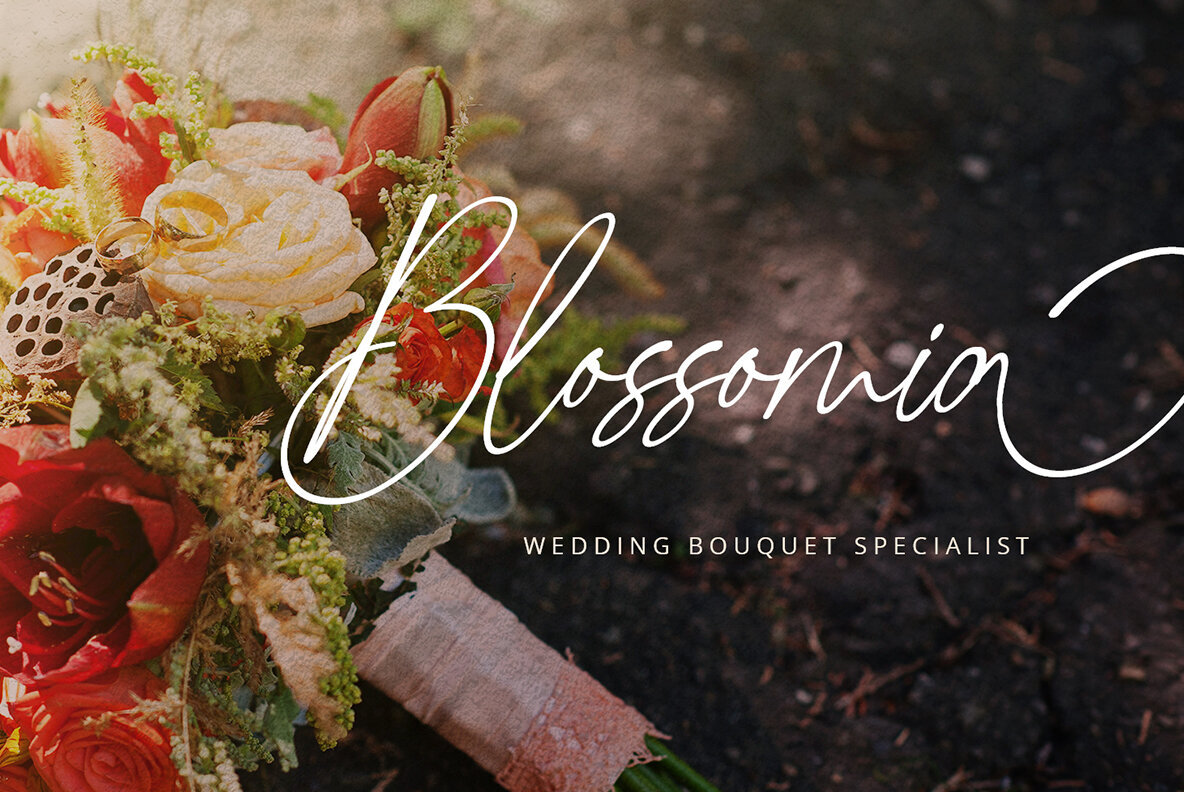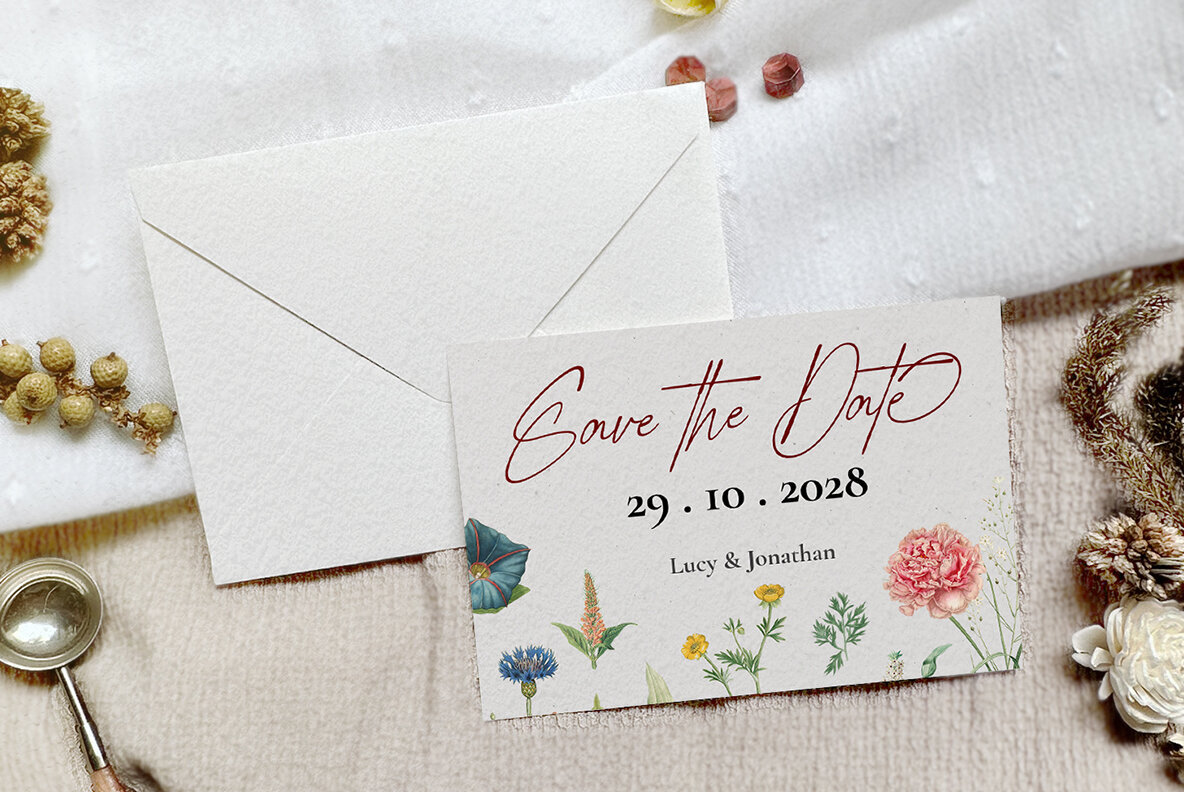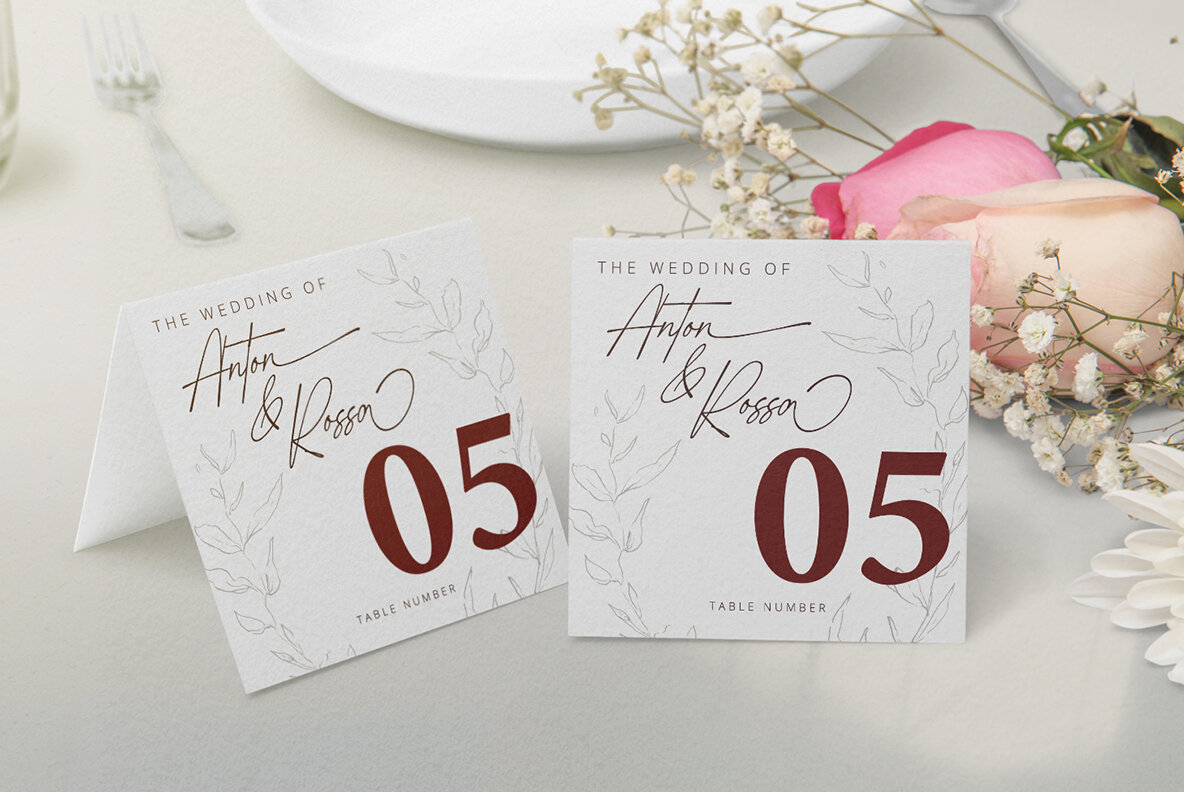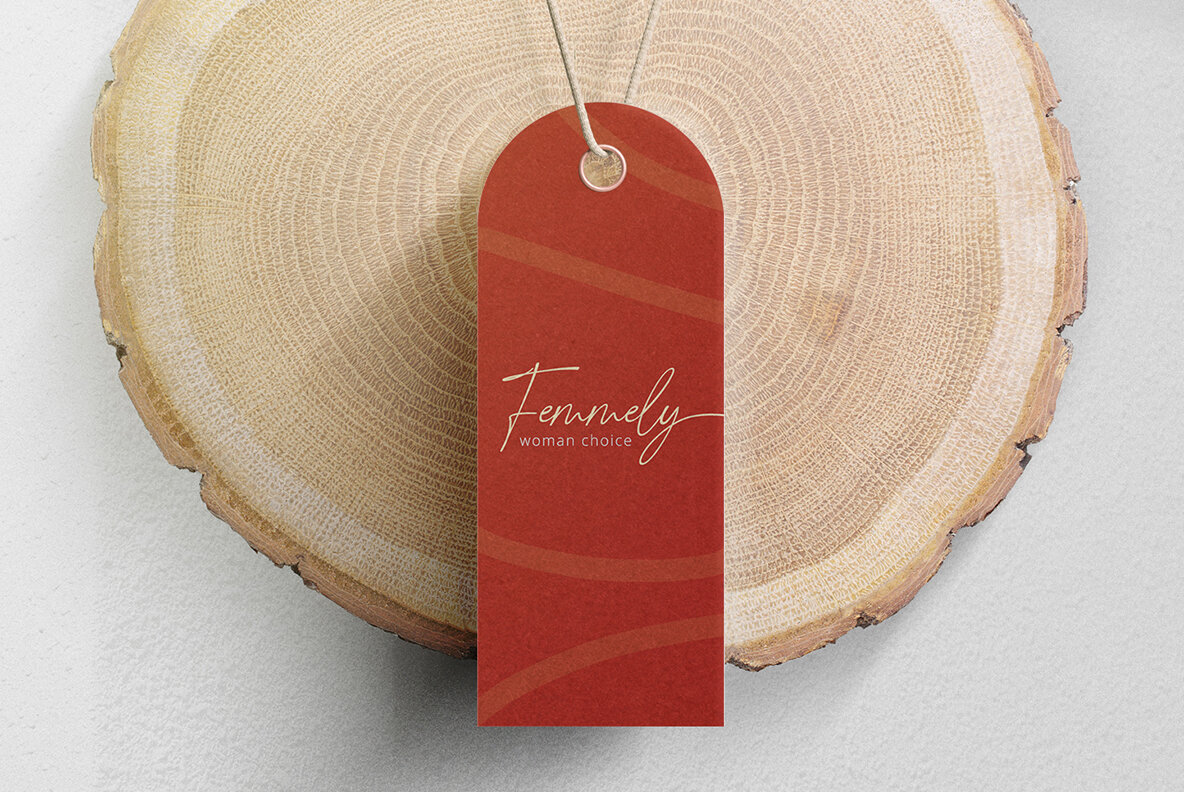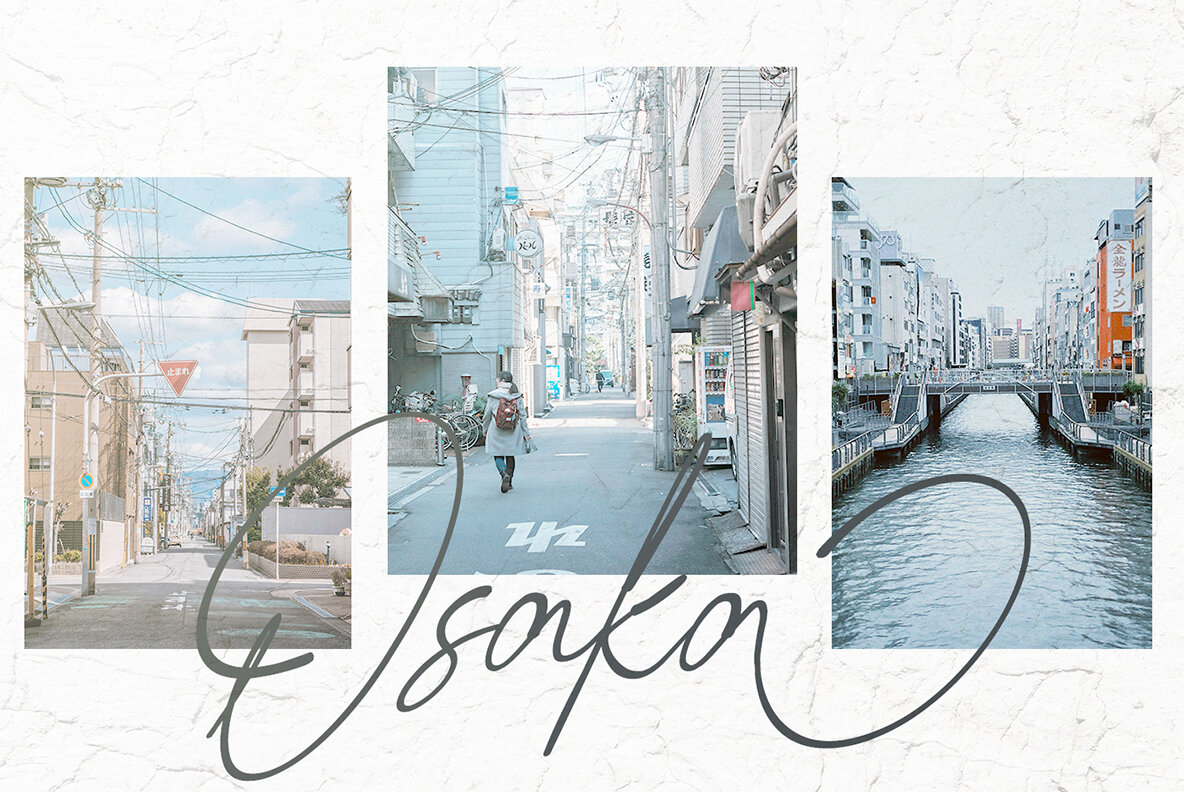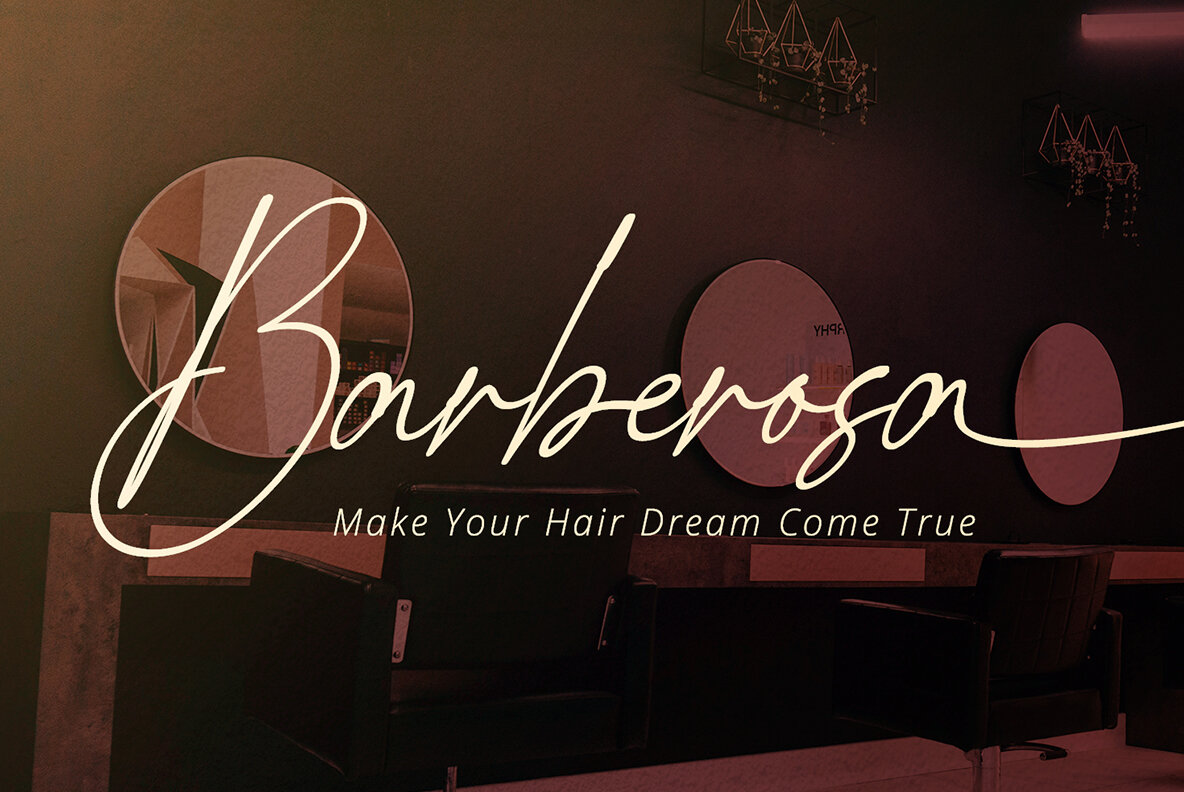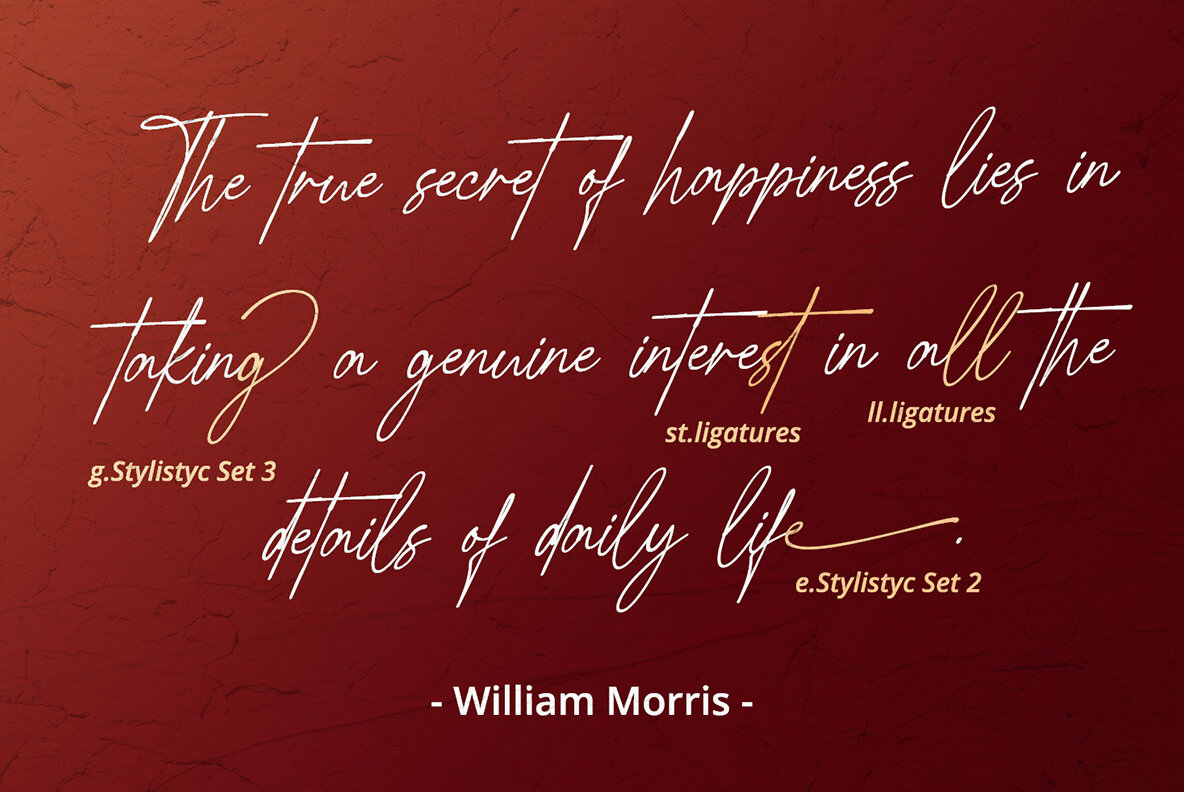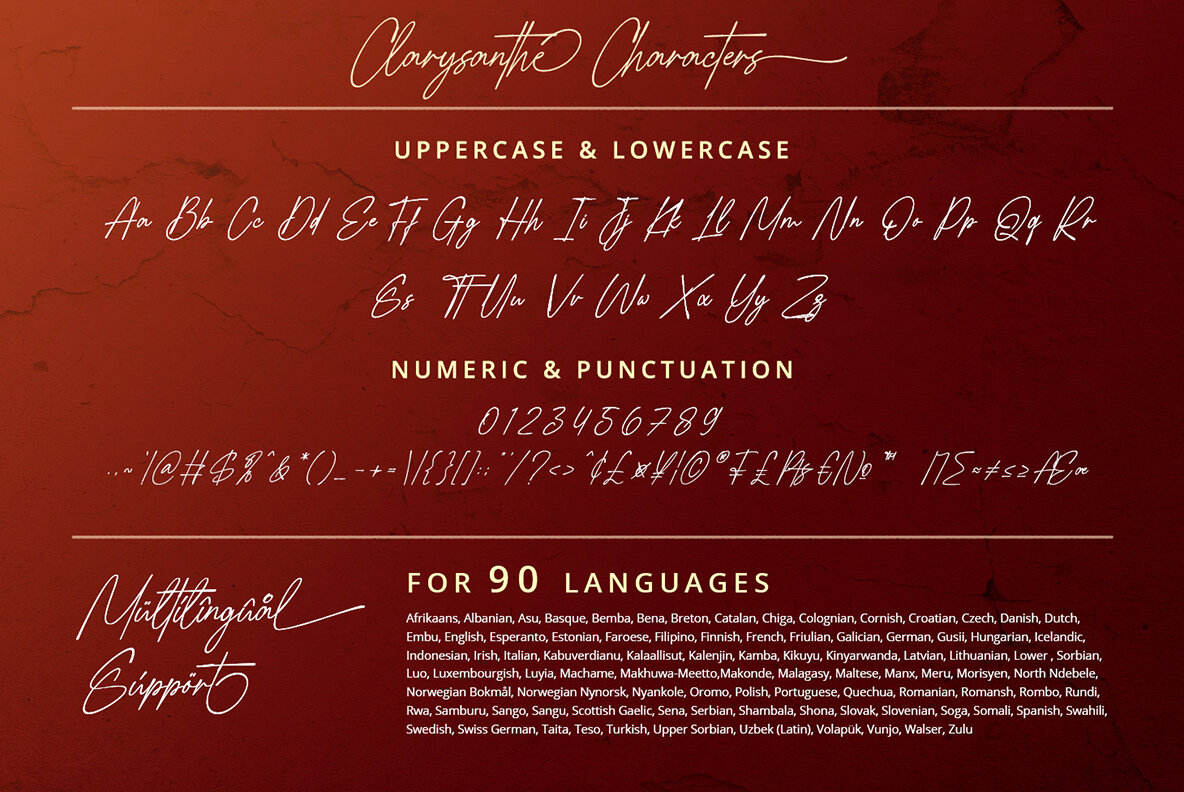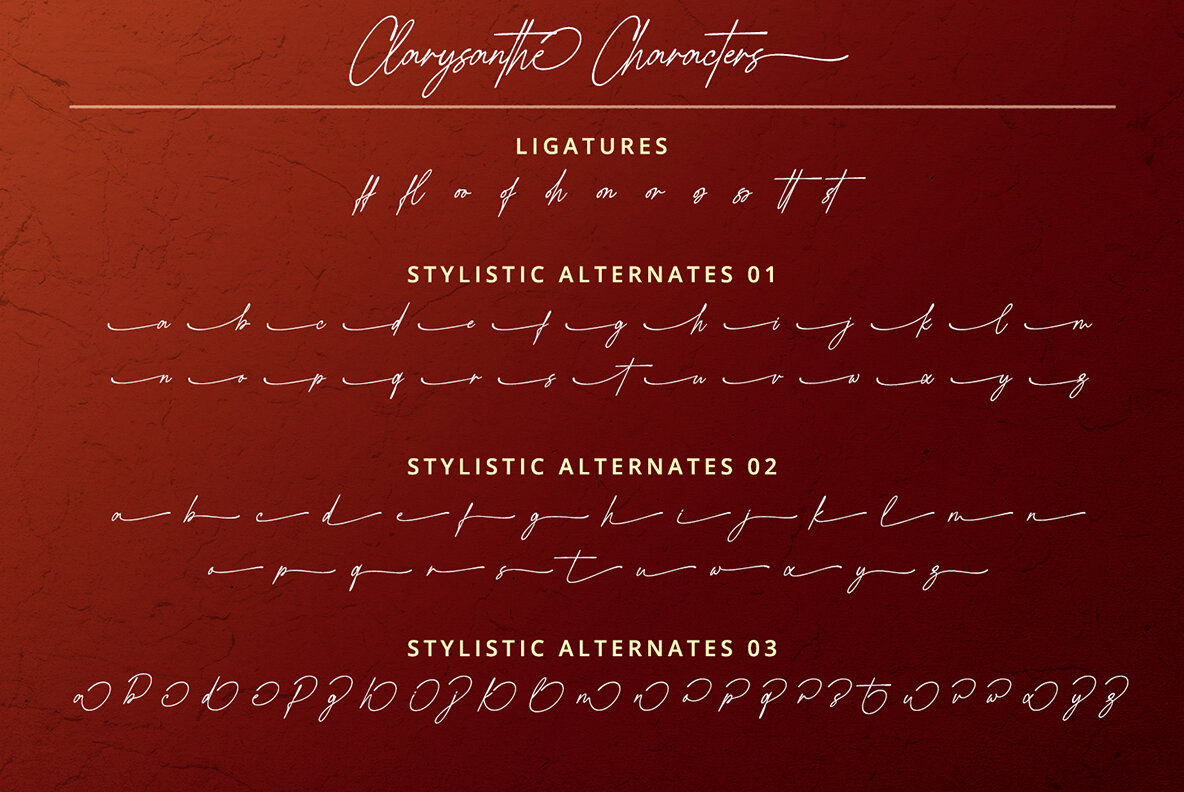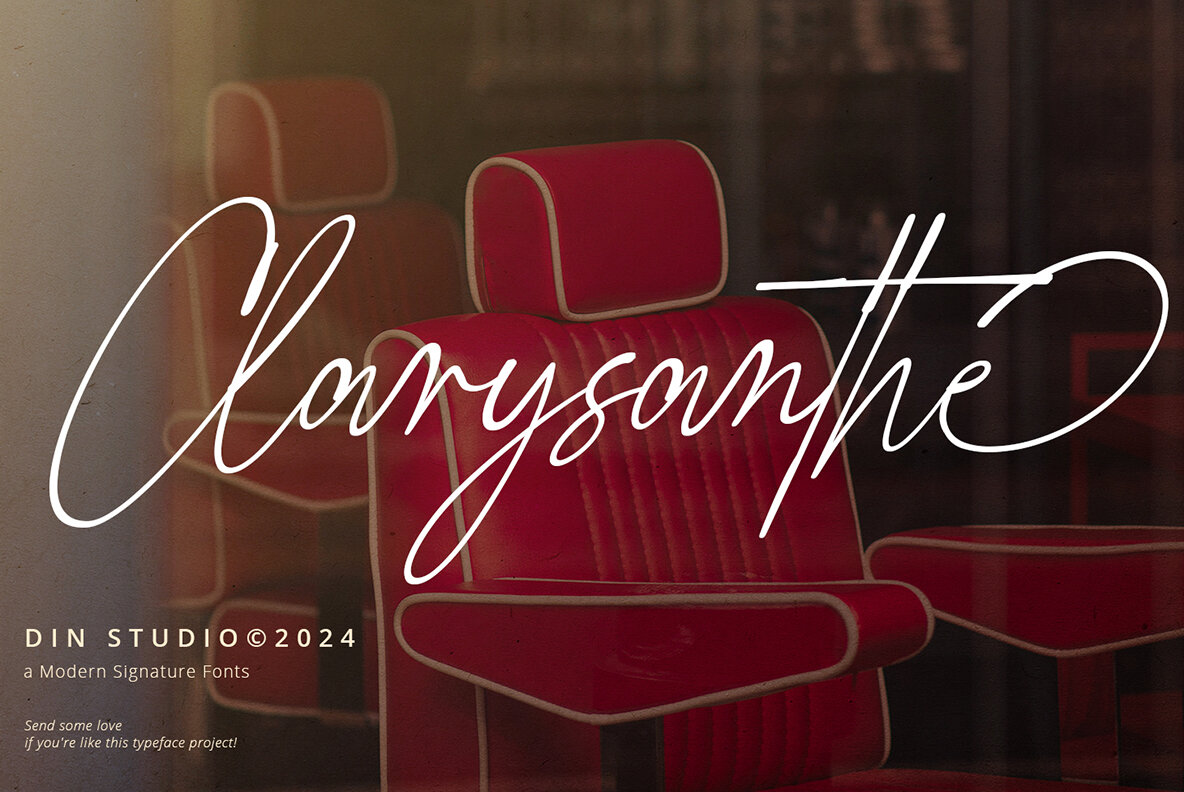
Clarysanthe Font
Clarysanthe Regular
Clarysanthe is a graceful script font designed in an elegant signature style, made in connected letters with charming swinging ends. With its low contrast and balanced, consistent letter proportions, Clarysanthe exudes sophistication and fluidity. Let your designs flow effortlessly with the timeless charm of Clarysanthe. In addition, enjoy the features here. Features: